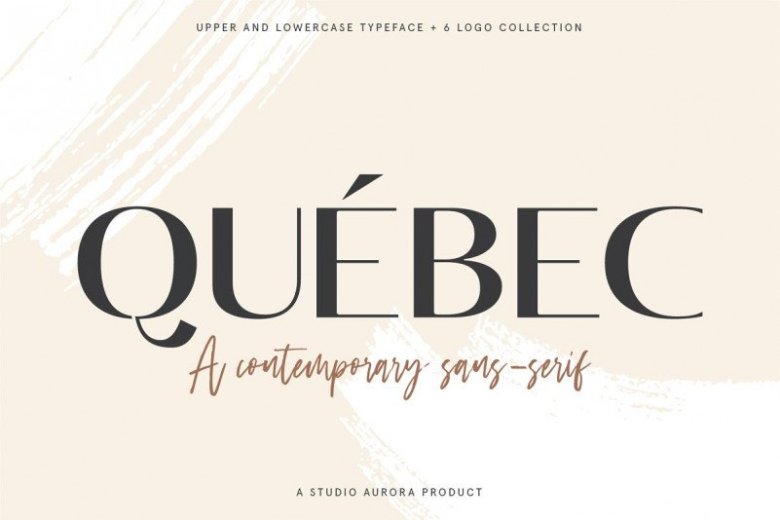
Quebec Sans Serif Font
Quebec Font is a minimalist sans serif font with clean stencil looks. The feminine letterforms which are perfect for logotype, fashion, and display. It’s a contemporary and unique elegant sans-serif font. It is perfect for use in logos and as header copy for magazines and posters. Being upper and lower case it is also suitable for body copy text.